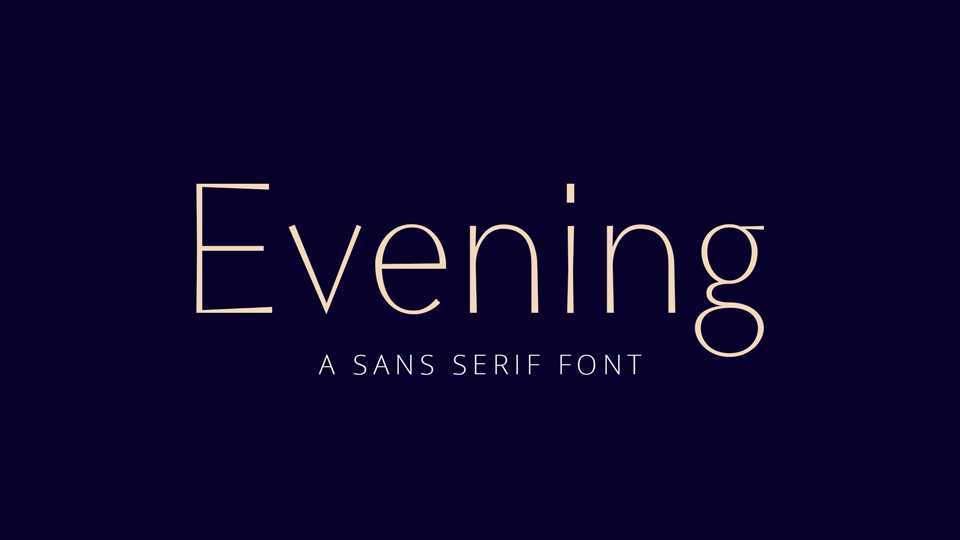
Download Evening font, a sans serif typeface in one weight loosely drawn from the cover of Ian Hamilton book. Evening font supports all languages that use the Latin script and its variants.
Designer: Bryce Wilner